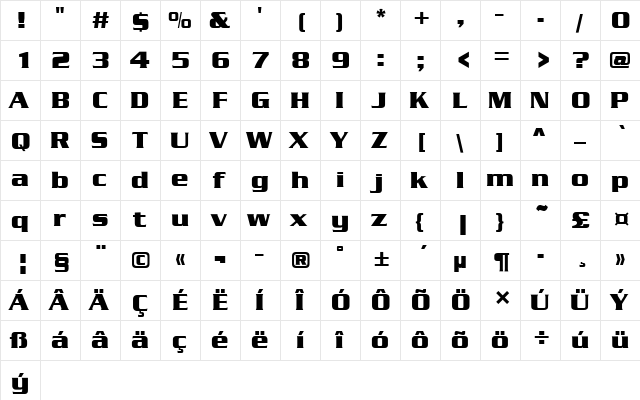
Serpentine D EE Bold Font Preview
Serpentine D EE Bold
Serpentine D EE Bold Font Details
Design Context for Serpentine D EE Typeface
Serpentine D EE is a composed and adaptable typeface that performs quietly and consistently across a wide range of design contexts. Its bold stroke weight gives it real presence on the page.